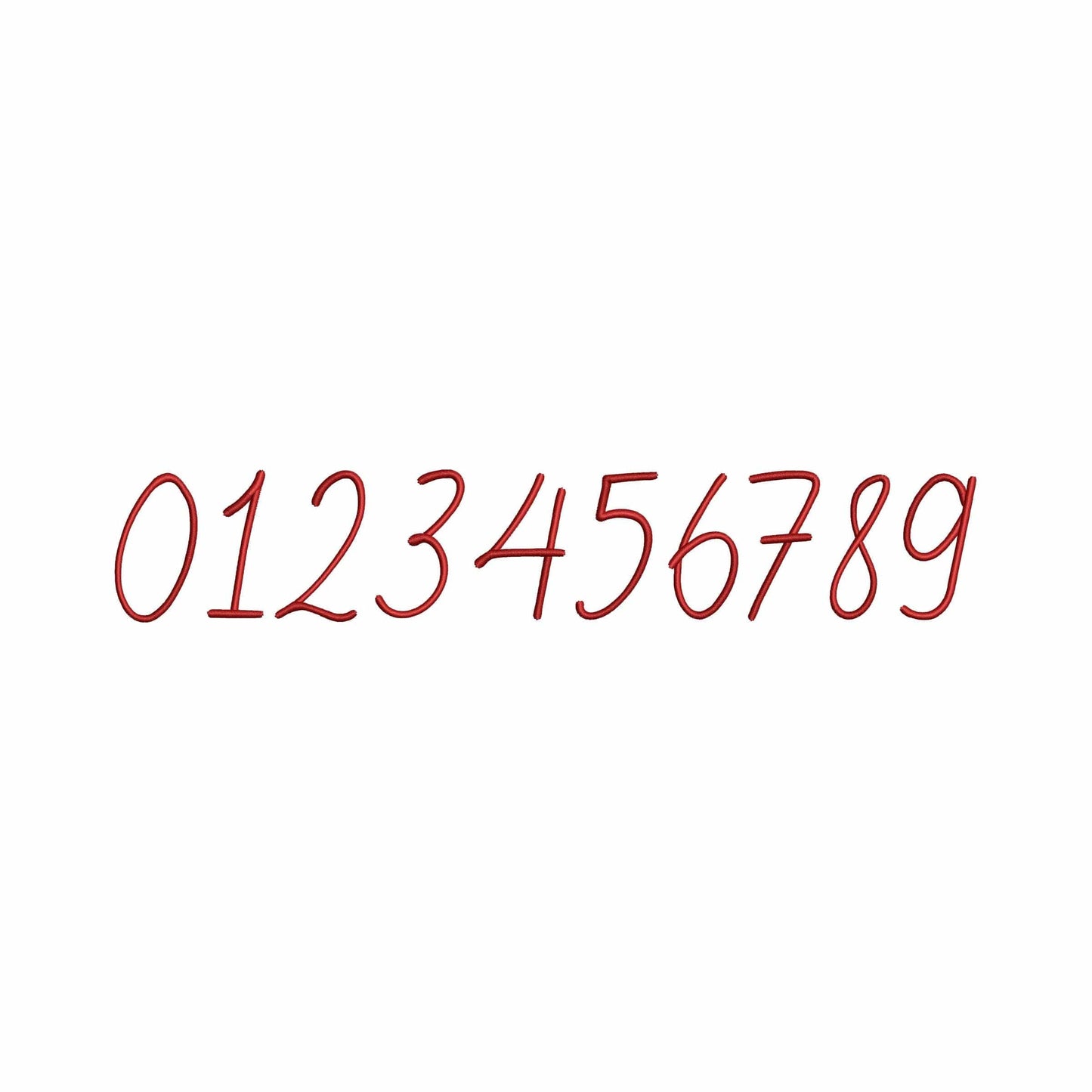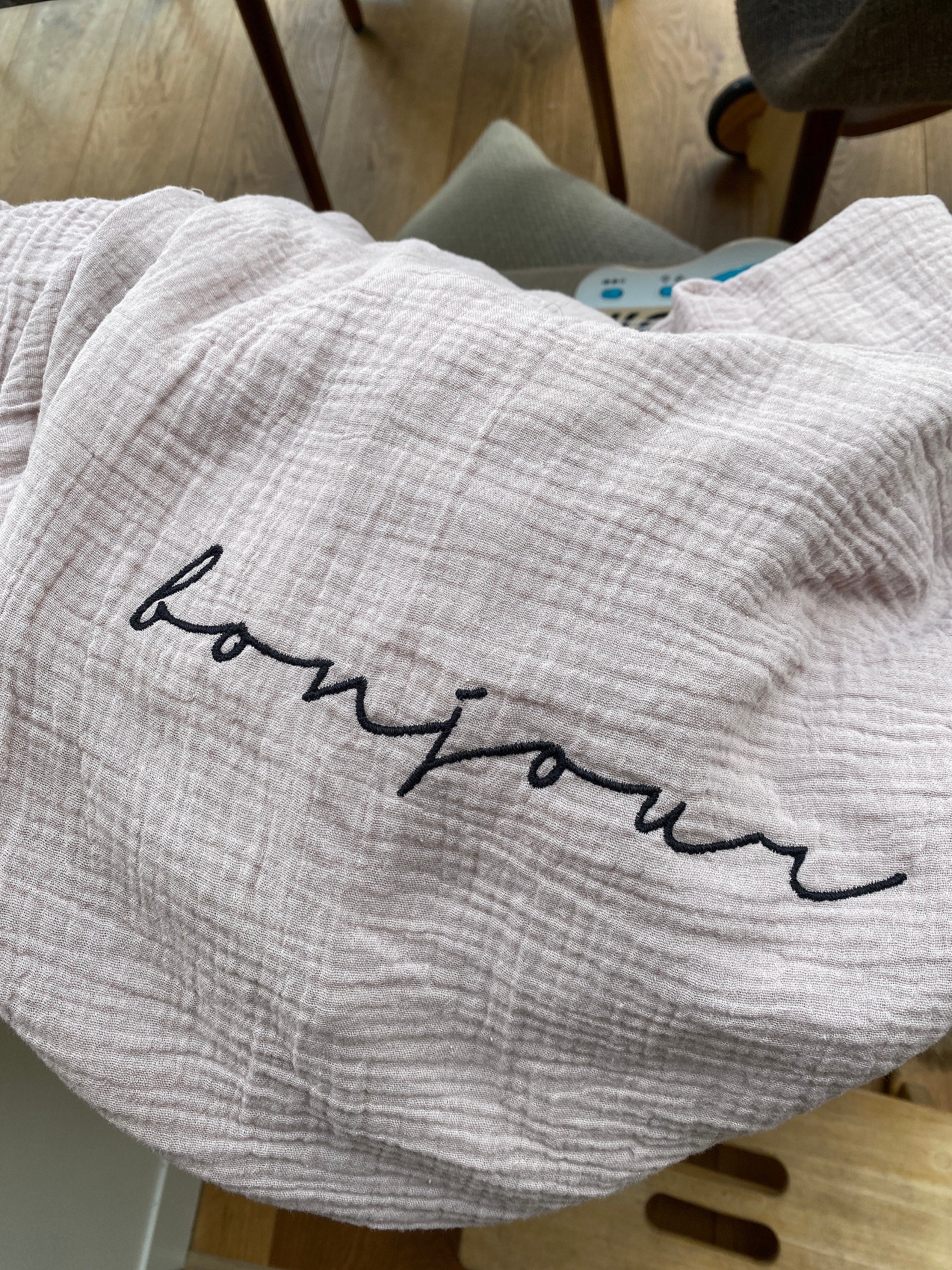
Anabel - Embroidery font
- Included: A-Z (uppercase), a-z(lowercase), 0-9 (numbers)
This machine embroidery font works well for monograms, shirts, towels, gifts, and modern feminine personalized embroidery.